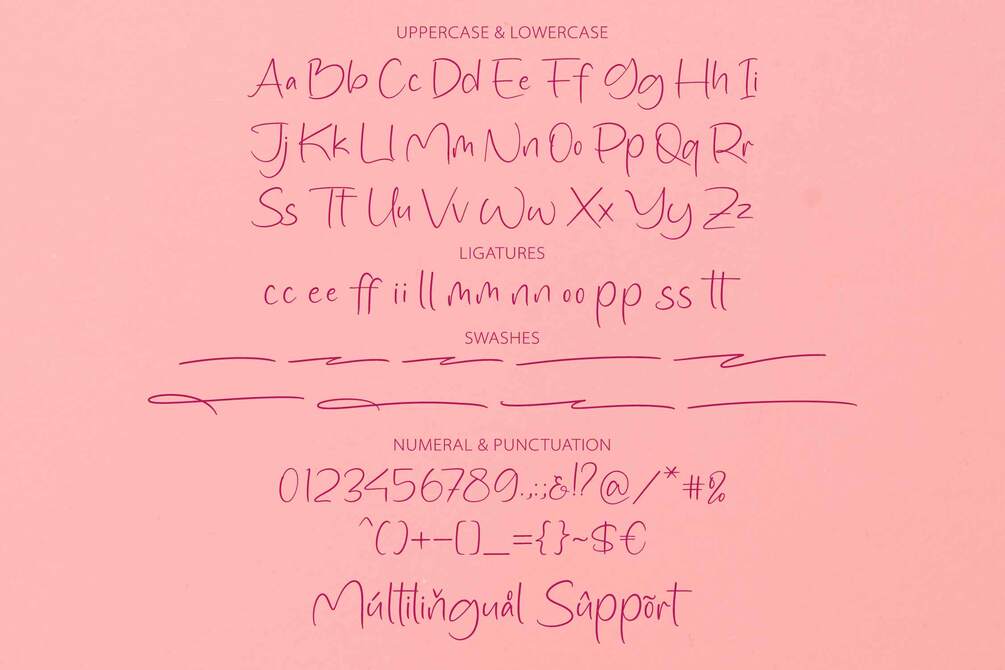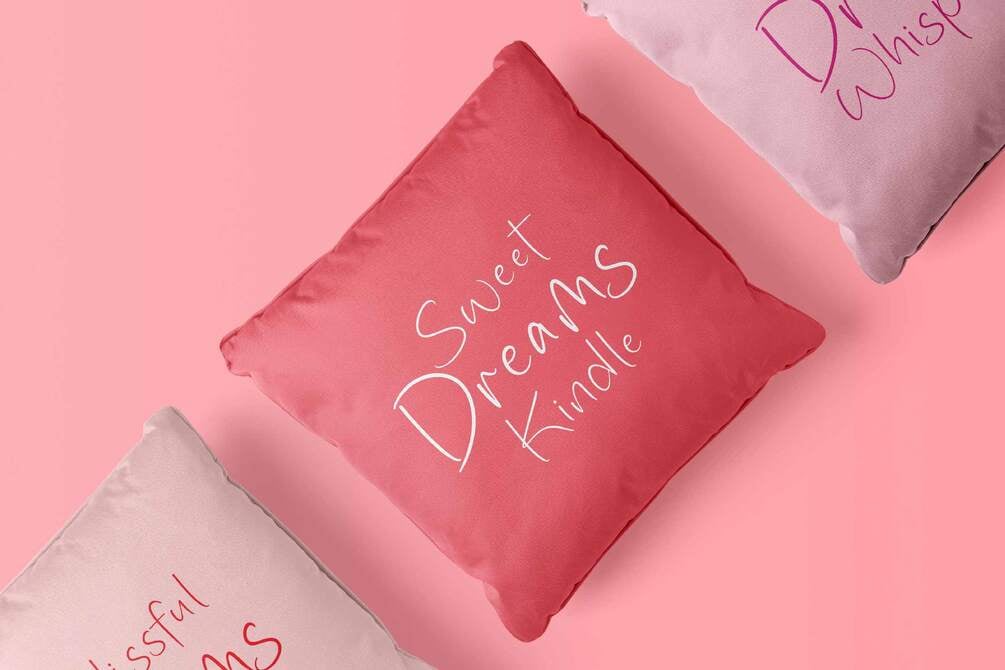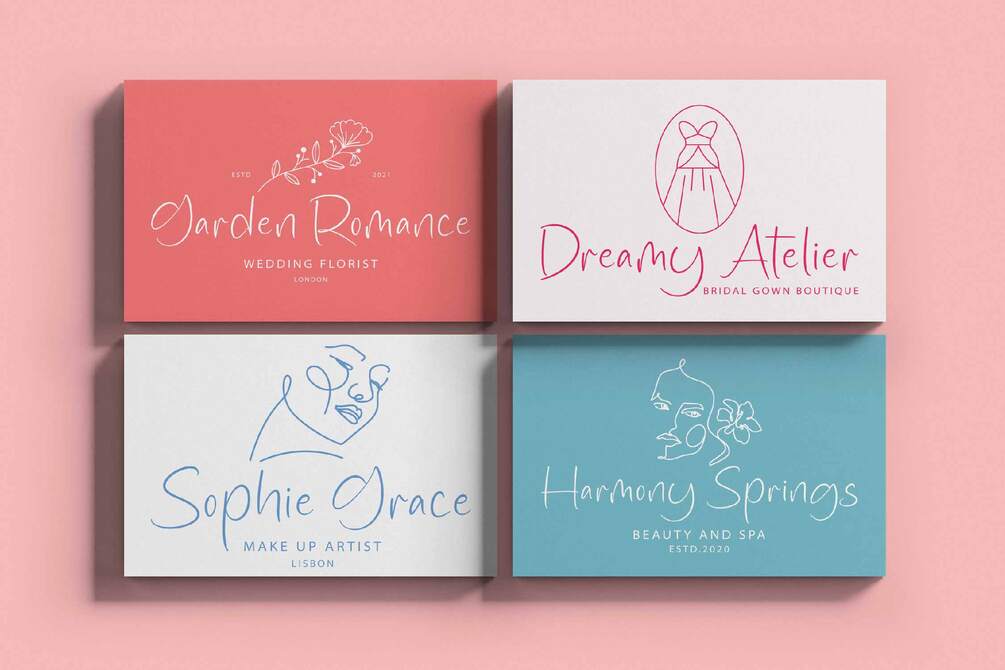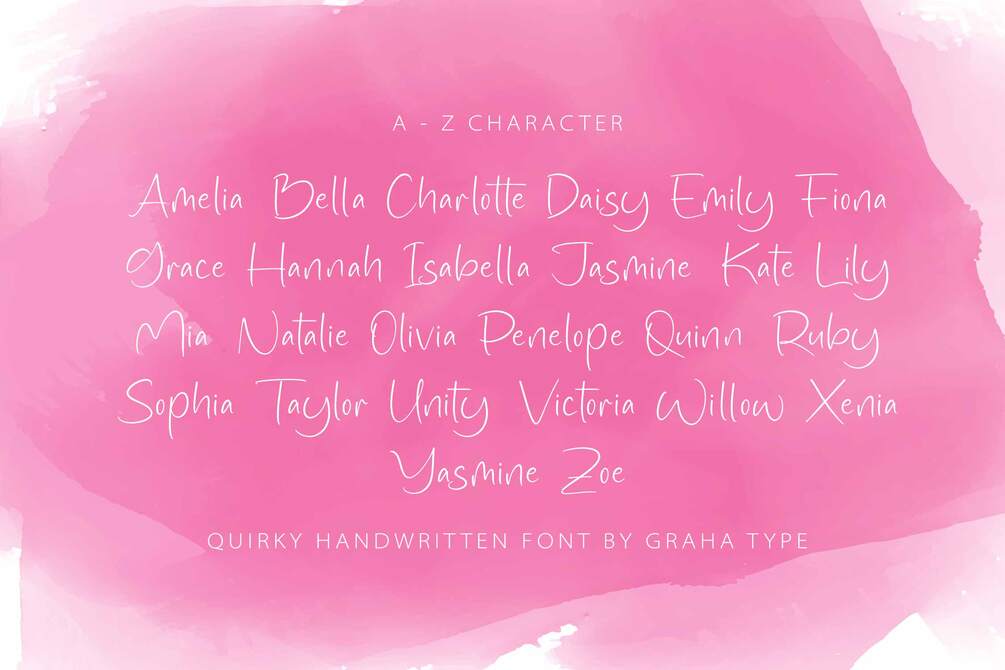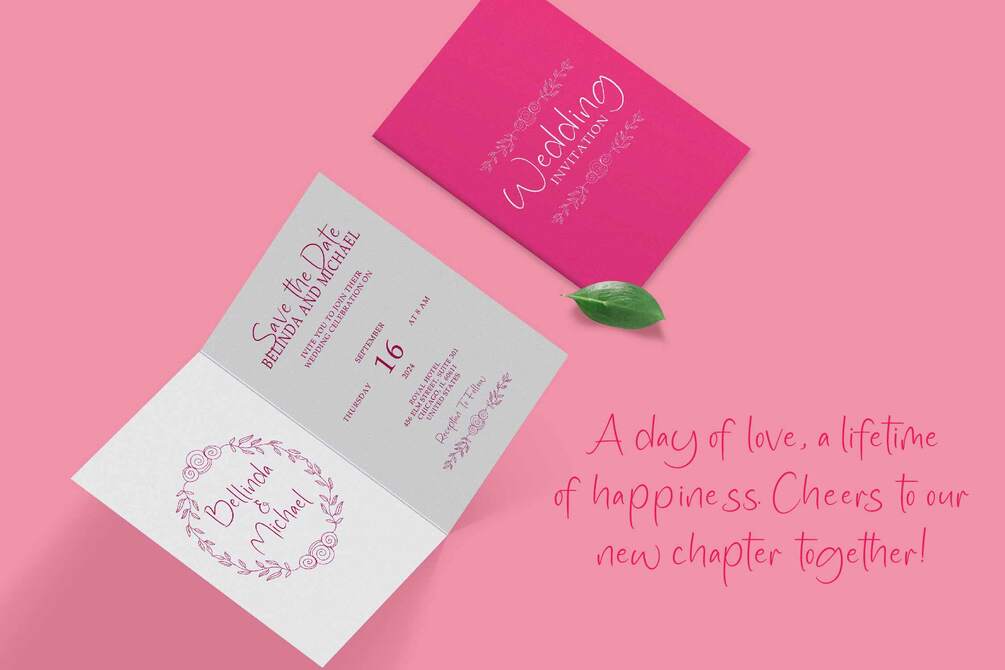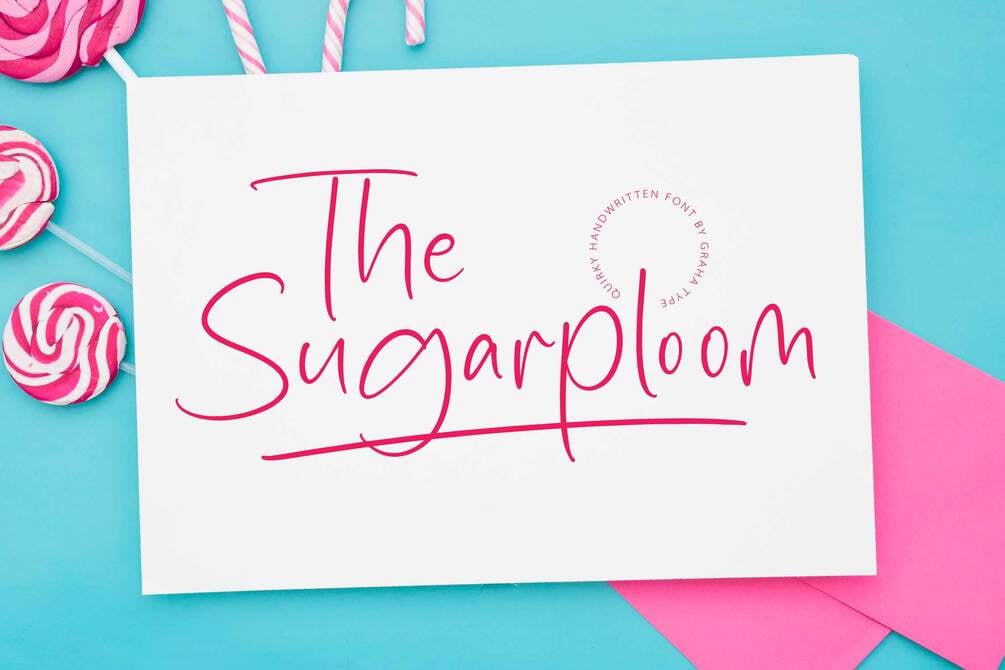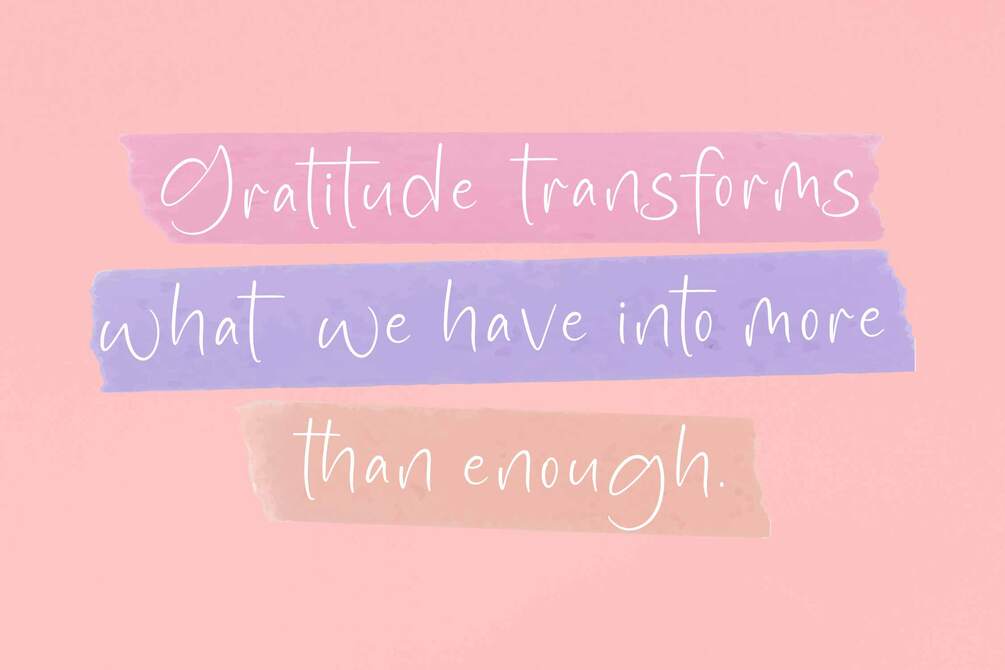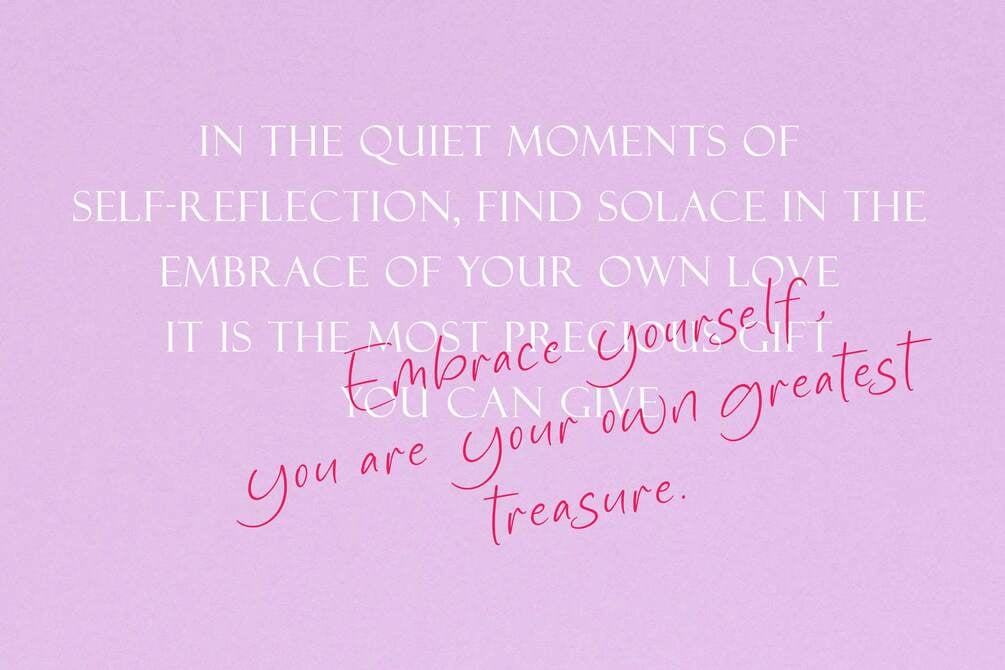
The Sugarploom - Quirky Handwritten Font
The Sugarploom is a unique handwritten font that beautifully combines simplicity with elegance and charm. Its distinctive shapes and playful ligatures elevate your designs, adding a warm and inviting touch. This versatile font is perfect for a variety of applications, including logos, quotes, invitations, and much more. Whether you’re aiming for a casual vibe or a sophisticated look, The Sugarploom can enhance your projects with its delightful character and stylish flair.
• Ligatures
• Multilingual Support